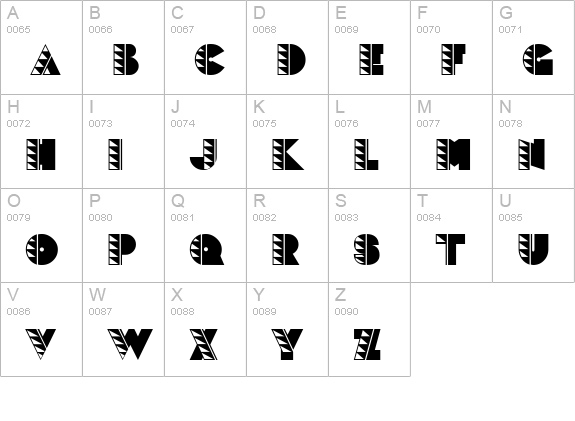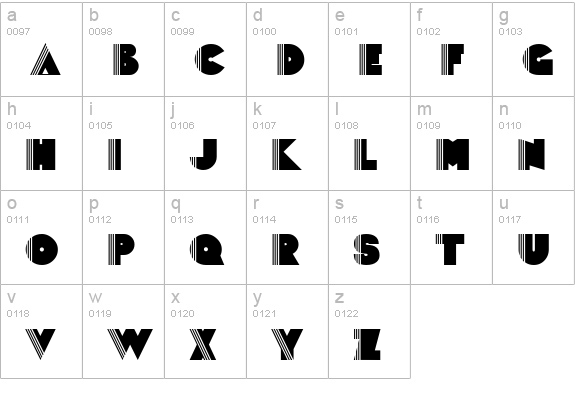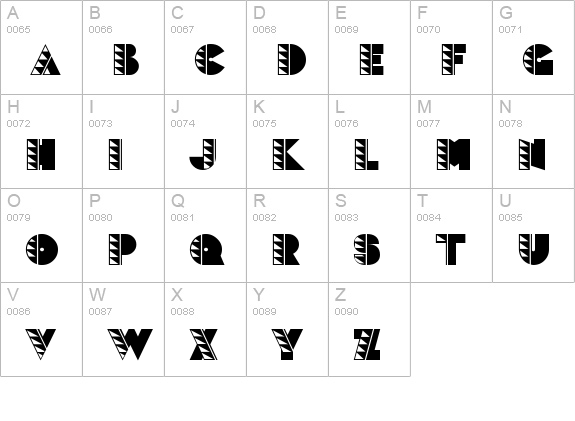
PopticsTwo Font Details
Introducing PopticsTwo font - a modern and stylish typeface that is perfect for adding a touch of sophistication to your designs. This versatile font features sleek lines and a contemporary feel, making it ideal for a wide range of projects. PopticsTwo font is not only visually appealing but also highly legible, making it a great choice for both digital and print applications. Whether you're designing a website, creating a logo, or working on a branding project, this font is sure to make a statement. Best of all, PopticsTwo font is available for free download at FontsMarket.com. So, you can easily add this stunning typeface to your font library without breaking the bank. Don't miss out on the opportunity to elevate your designs with the sleek and stylish PopticsTwo font. Download it today and see the difference it can make in your projects!